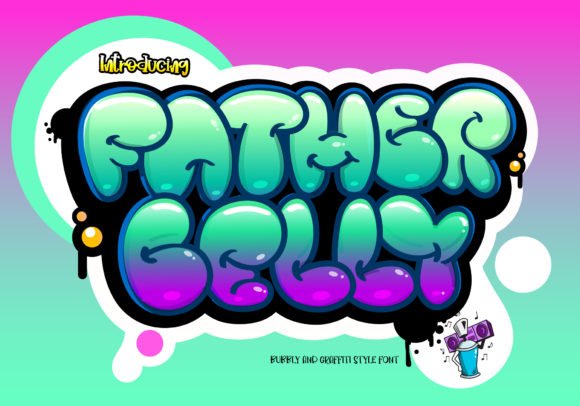
Discover the Joy of Father Belly Font
Have you ever been brainstorming a new design project and suddenly, a burst of creativity strikes you? Perhaps it’s a children’s book cover, a playful advertisement, or a fun logo for a cartoon character. Whatever the idea, you know exactly what you need – a font that captures the essence of whimsy and fun. That’s where Father Belly Font comes in, a bubbly and friendly display font designed to bring a smile to your audience’s faces.
Whether you’re a seasoned designer or just starting out, Father Belly Font is a valuable addition to your toolkit. Its versatility makes it perfect for a wide range of applications, from children’s games to editorial illustrations. With its playful flair, this font is sure to add a touch of warmth and personality to any design project.
Father Belly Font Key Features
- Font Family: Father Belly is a unique, hand-drawn font family designed for creative and artistic purposes.
- Unique Characteristics: Father Belly features a distinctive, playful style with hand-drawn strokes, making it perfect for creative projects, logos, and branding materials.
- Character Set: The font includes a wide range of characters, including uppercase and lowercase letters, numbers, punctuation marks, and special characters.
Design Review: Father Belly Font
Overall, I was excited to dive into the Father Belly Font, and here’s my honest take.
- The unique, playful aesthetic is a great addition to any project, especially those with a whimsical or humorous tone.
- The bold and rounded shapes make it easy to read, even in smaller font sizes.
- The font is highly customizable, with many options for color, size, and style.
- The font may not be the best choice for formal or professional projects, due to its playful nature.
- Some users may find the font too loud or overwhelming, especially in large quantities.
- The font may not be suitable for projects that require a lot of text, as it can become visually overwhelming.
The Father Belly Font is a fun and playful addition to any design project. While it may not be the best choice for every project, it’s a great option for those looking to add some whimsy and personality to their design. With its high level of customization and unique aesthetic, it’s a great choice for designers looking to stand out.
Tips for Getting the Most Out of Father Belly Font
For best results, use Father Belly Font in conjunction with bold or italic styles to create visual interest.
Experiment with different font sizes to create a dynamic and playful look.
Father Belly Font is perfect for:
- Food and drink labels
- Playful advertisements and marketing materials
Alternatives to Father Belly Font for Designers
Bebas Neue is a sans-serif font designed for display purposes, offering a modern and clean look. It is ideal for use in headings, titles, and any other text where a bold and eye-catching font is needed. Bebas Neue is a great alternative to Father Belly Font when you need a more subtle yet still stylish font.
Montserrat is a geometric sans-serif font that is highly legible and versatile. It is perfect for use in body text, headings, and titles, and works well in a variety of contexts, from digital to print. Montserrat is a good choice when you need a font that is both modern and timeless, and can be used as a substitute for Father Belly Font in many situations.
Q: Can I customize the Father Belly Font for my specific design needs?